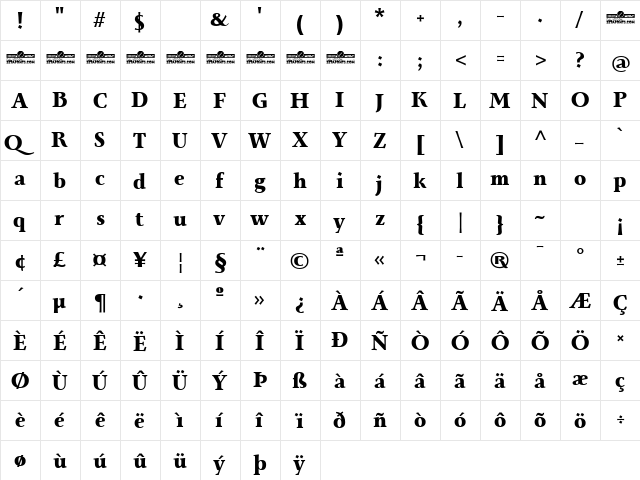
Monterchi Serif Trial Extrabold
| Foundry | Zetafonts |
| Designer | Cosimo Lorenzo Pancini e Francesco Canovaro & Maria Chiara Fantini |
Design Context for Monterchi Serif Trial Typeface
Monterchi Serif Trial carries the refined structure of traditional serif typography, with bracketed terminals and considered proportions that communicate credibility and craft. The heavy weight commands attention and anchors typographic hierarchies.